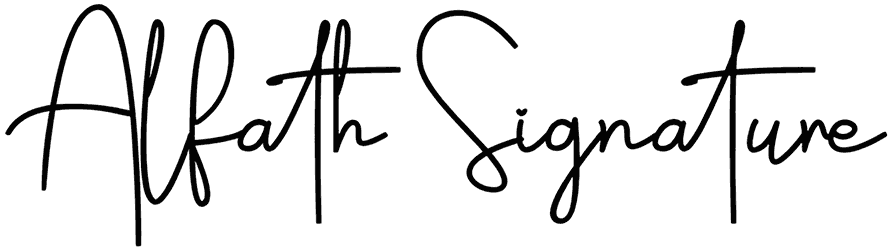
Alfath Signature Font
The present handwritten font looks like an elegant artistic signature. What do you say? This autograph font is a nice adornment for your new design of an event planner business card. The natural and casual visual of the Alfath Signature font is going to add a nice vibe to your intended layout and make it unique.